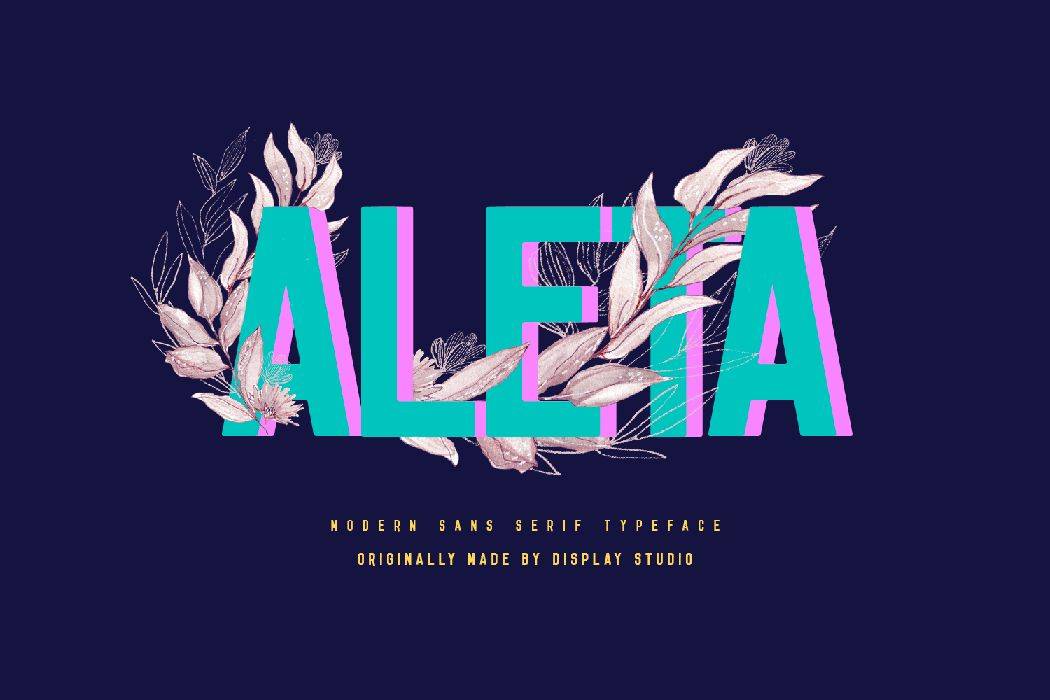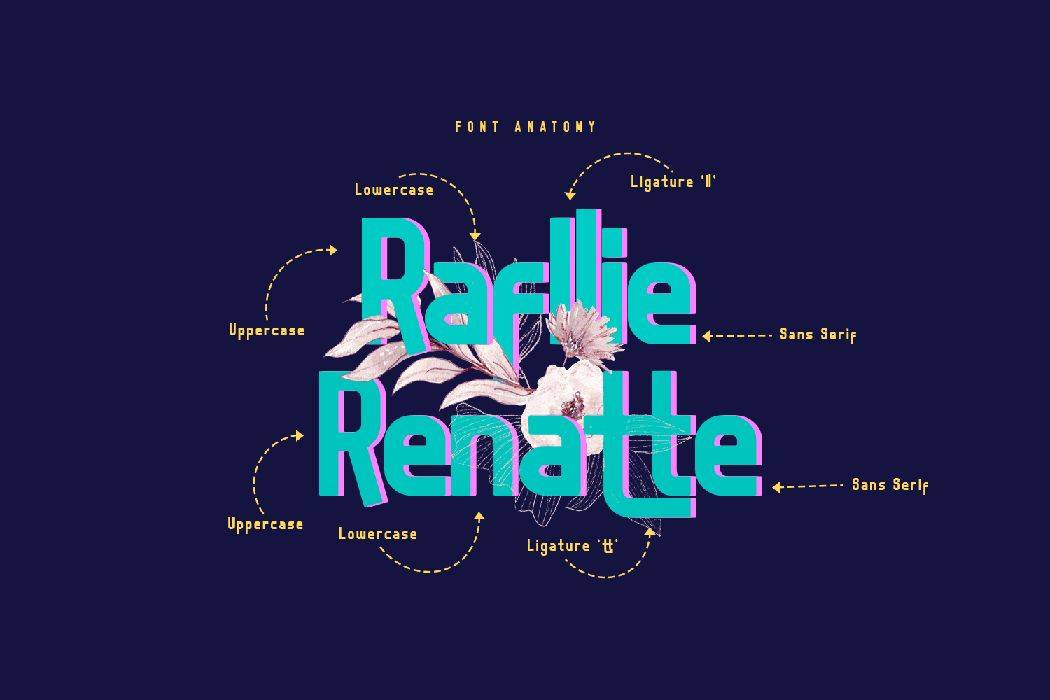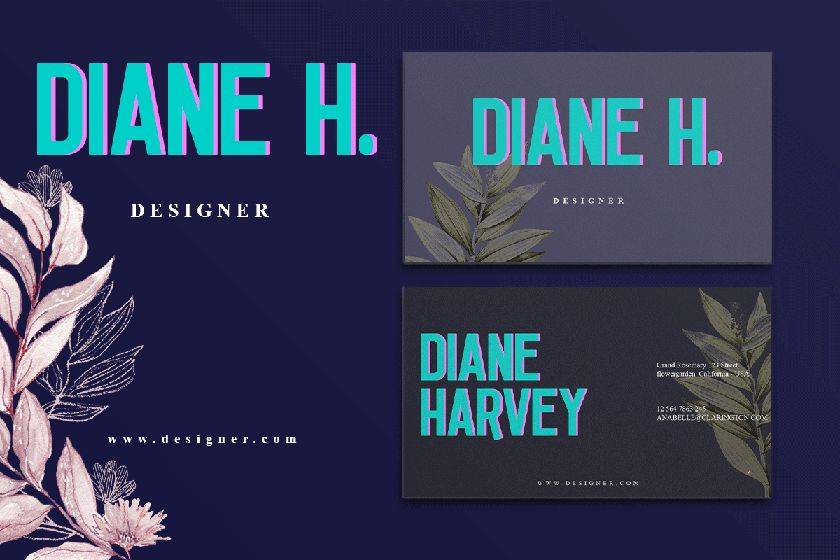
Aleta is a bold, condensed sans serif font with a modern and industrial feel, featuring clean, straight lines and slightly squared letterforms. Its high x-height and uniform stroke width create strong legibility, making it ideal for impactful headlines and branding that demand attention. This font works particularly well for urban, tech, or contemporary design projects seeking a confident and sturdy aesthetic.
Aleta Font
About Aleta Font
| Font family | Aleta Font |